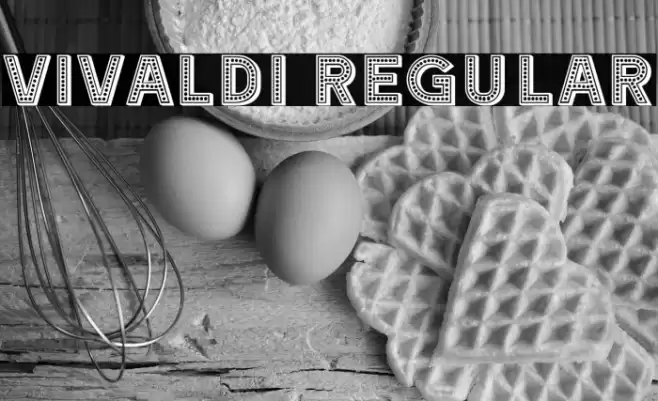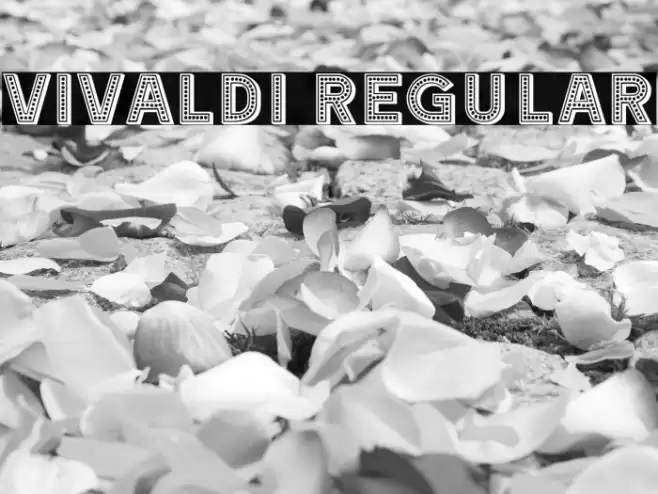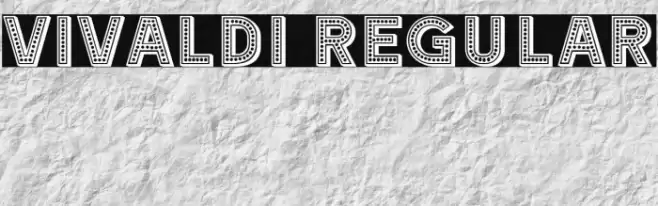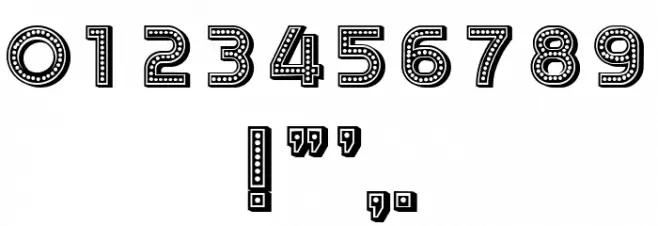
Vivaldi Regular Font
Vivaldi Regular Description
This font features a bold, decorative style with a unique dotted pattern inside each character, reminiscent of marquee lights. The uppercase and lowercase letters maintain a consistent width, creating a cohesive look. The numbers and special characters follow the same design, ensuring uniformity across all glyphs. The font's playful and eye-catching design makes it ideal for projects that require a touch of whimsy and flair. Its bold outlines and intricate detailing are perfect for capturing attention in various design contexts.
A bold, decorative font with a dotted, marquee light style from Uncategorized fonts.
- Font: Vivaldi Regular
- Proposed Projects: Ideal for poster designs, event invitations, signage, and branding projects that require a bold, eye-catching typeface.